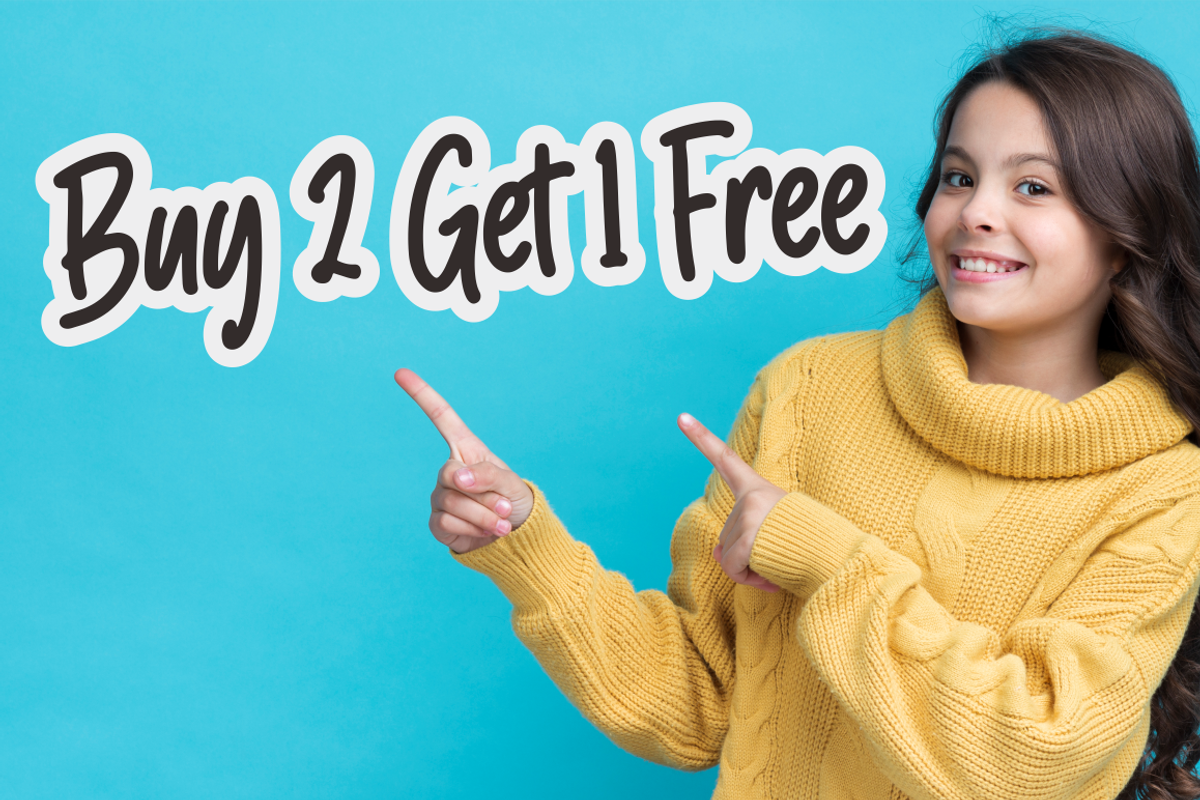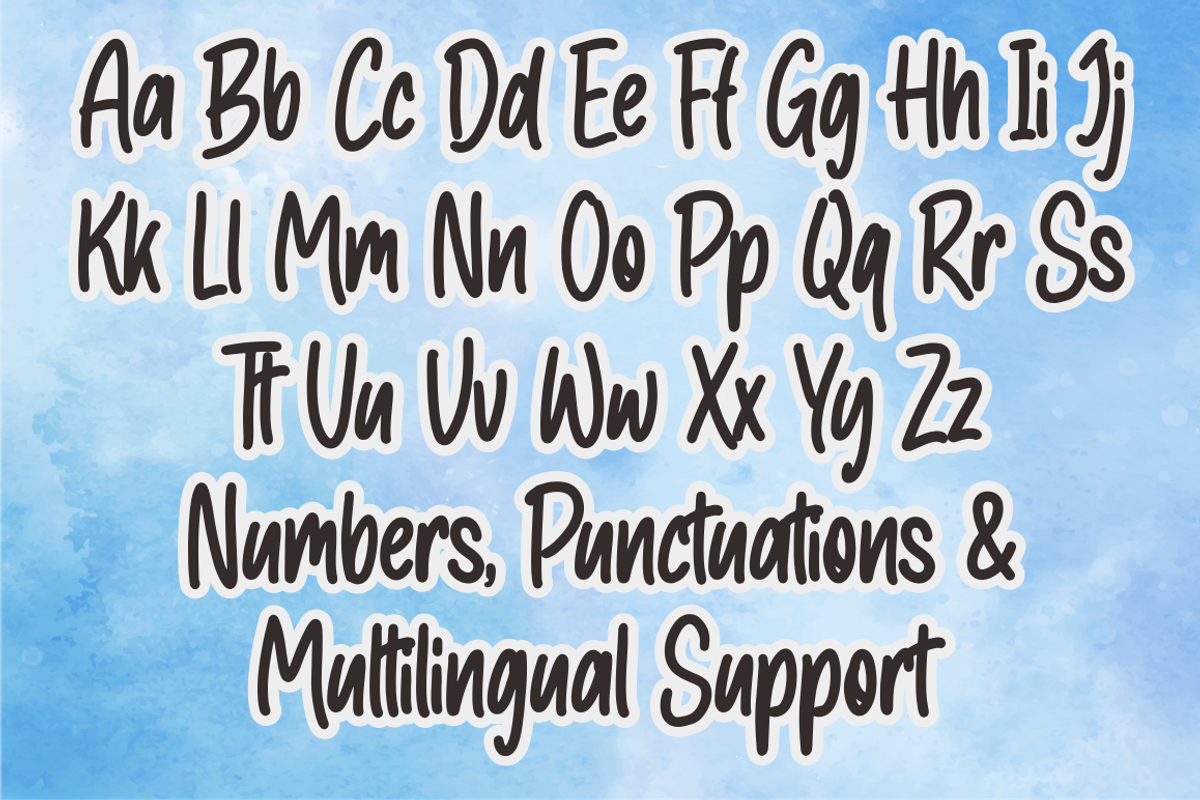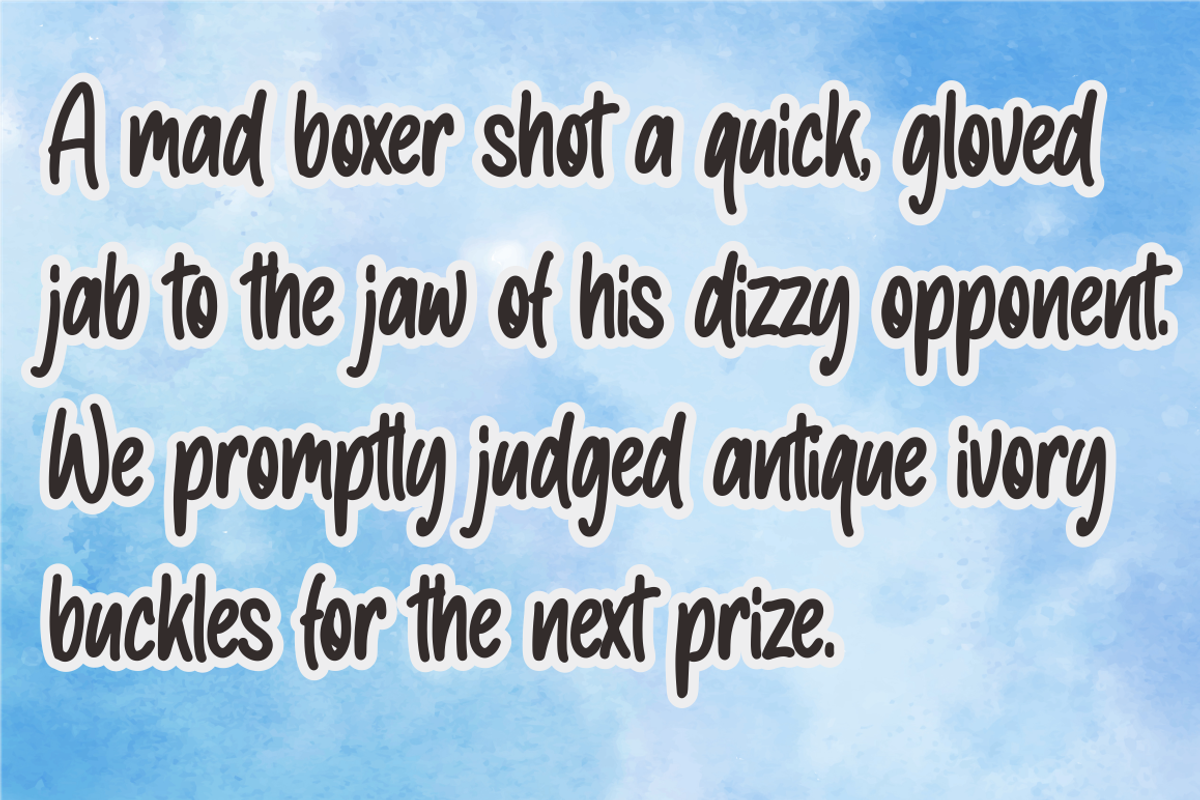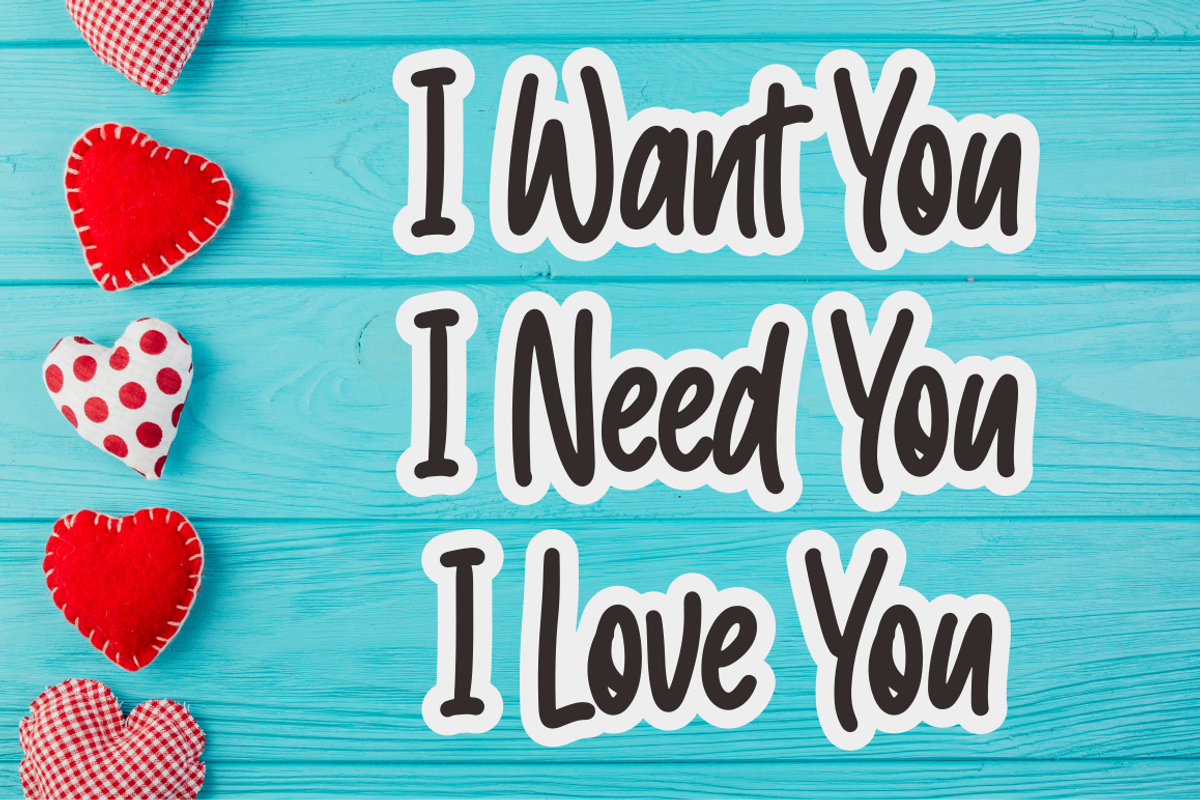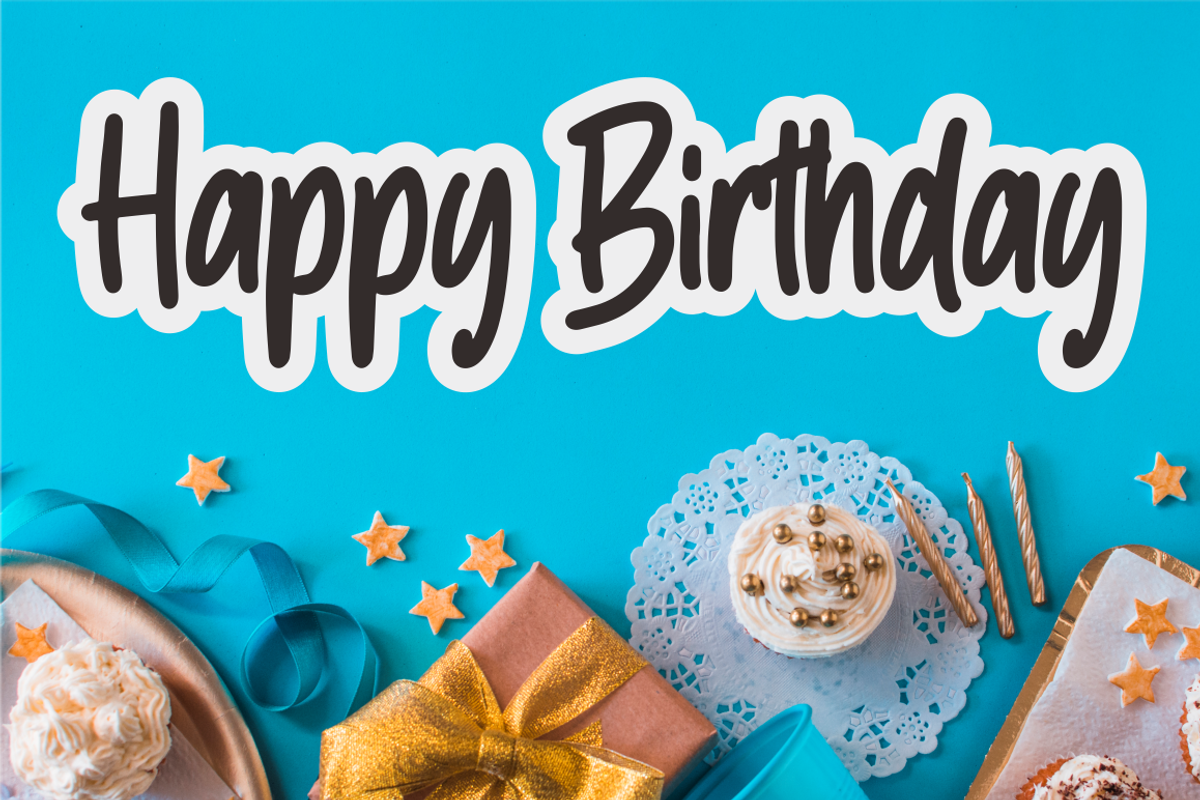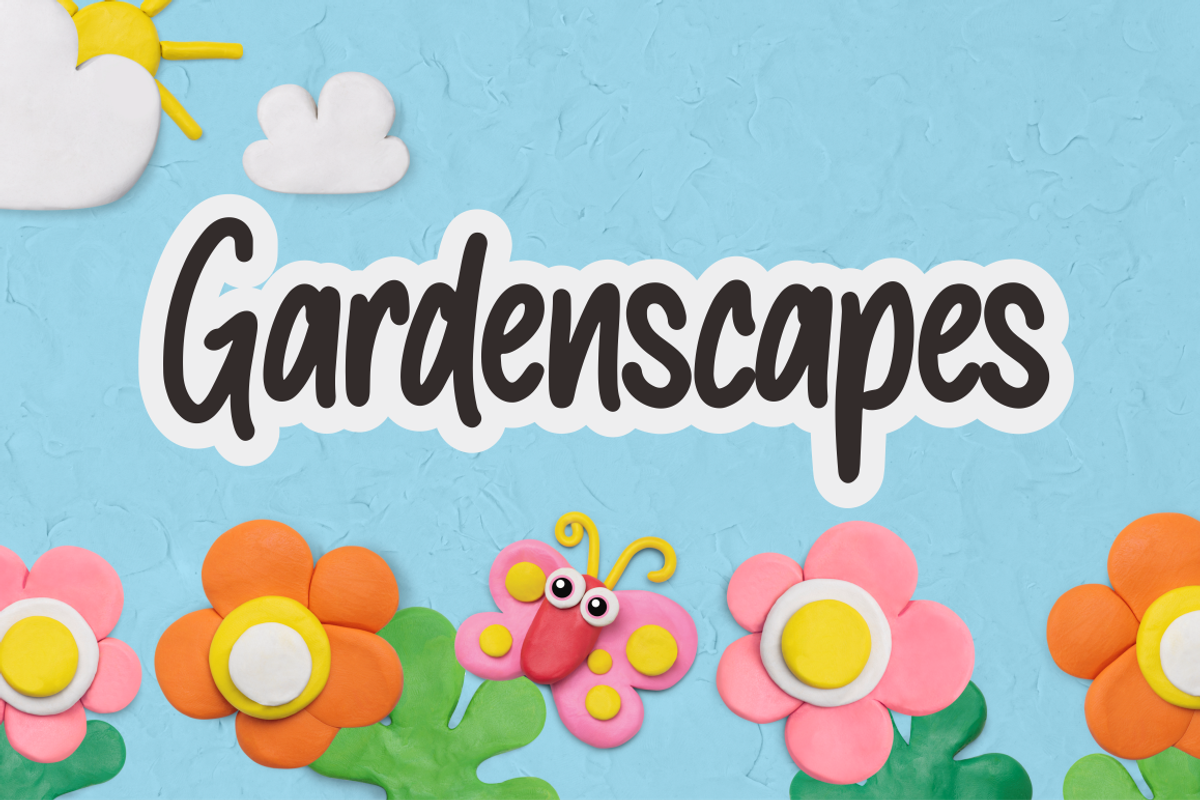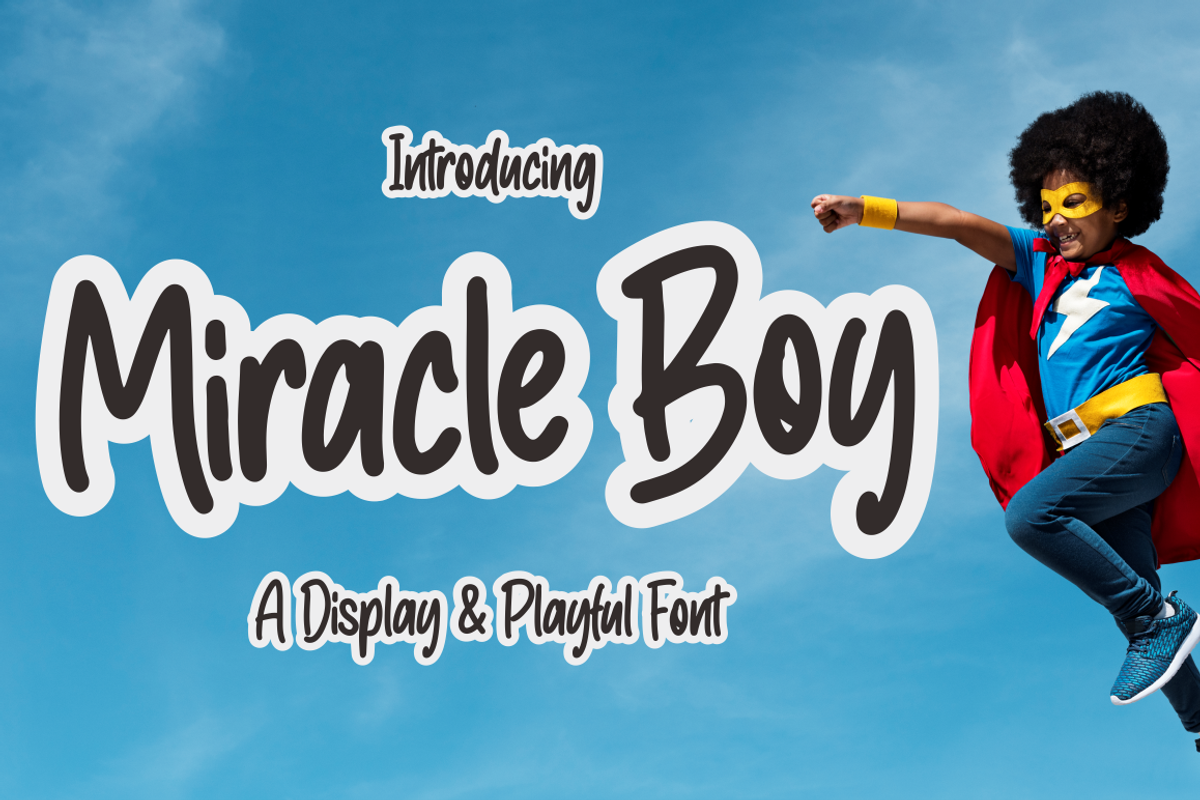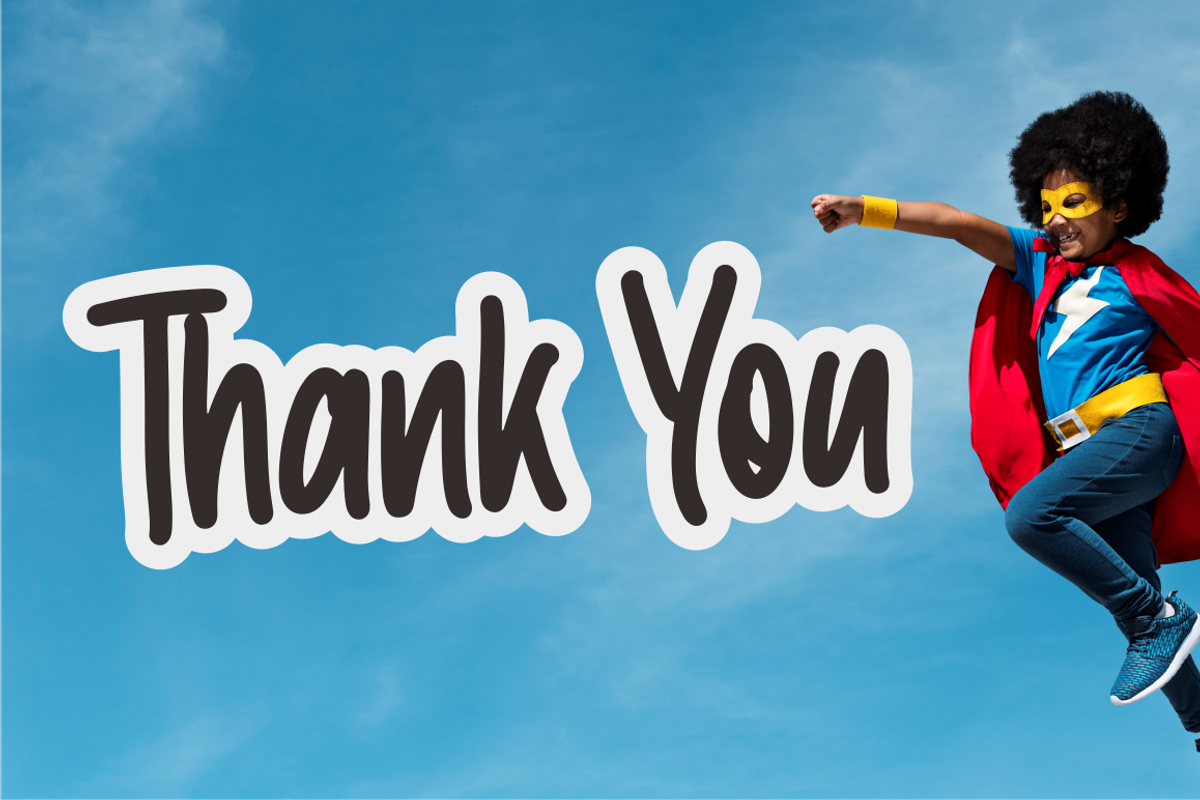
Miracle Boy
Miracle Boy a display font. It features fun characters that will take your projects to the next level!
This font is PUA code which means you can easily access all the glyphs that are full of sans! It also features many special features including glyphs. font designs that are made for various vector designs, printing such as digital wedding blogs, online shops, social media, while printing can be used in the field of product clothing, accessories, bags, pins, logos, business cards, watermarks and many others ...
so it can make your product look fun and attractive, and also Multilingual support!!!